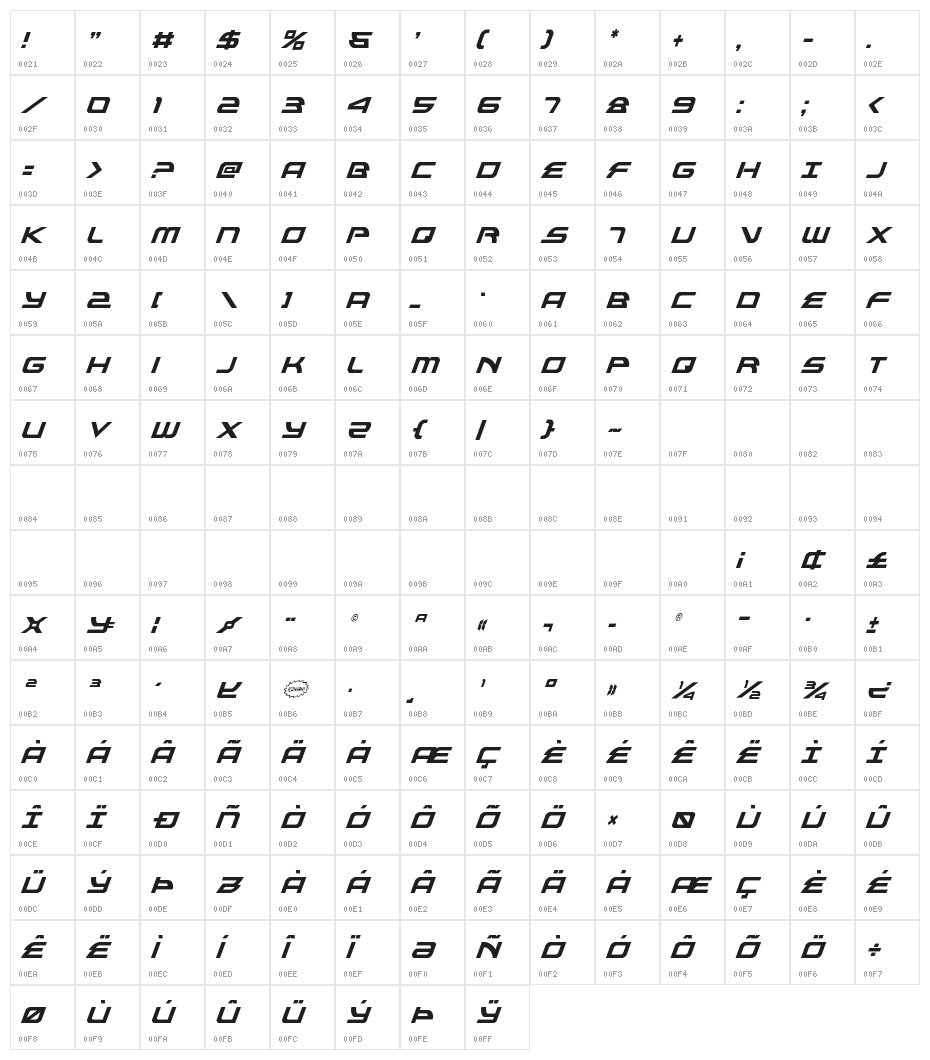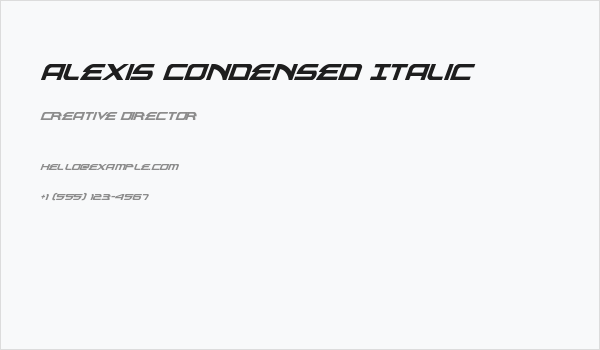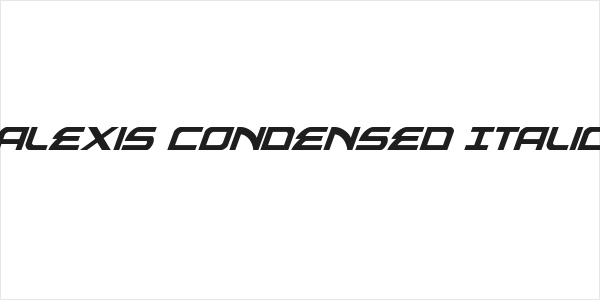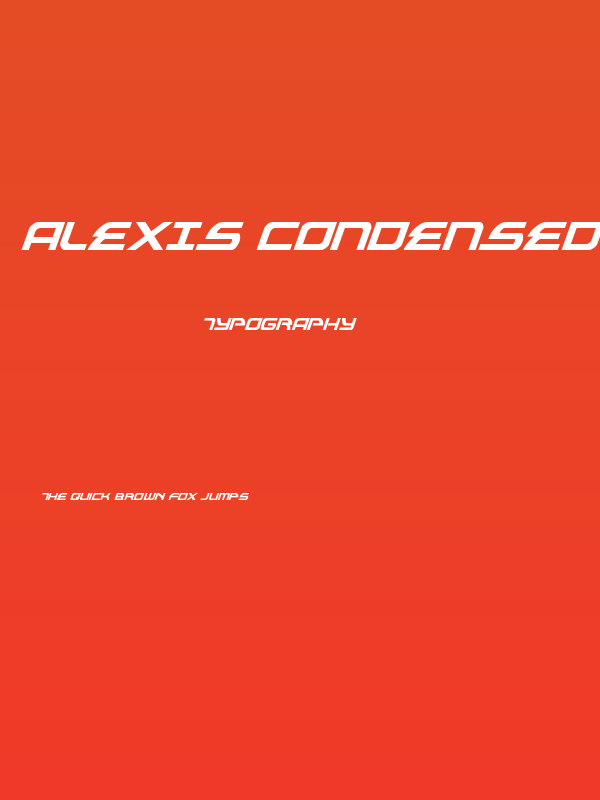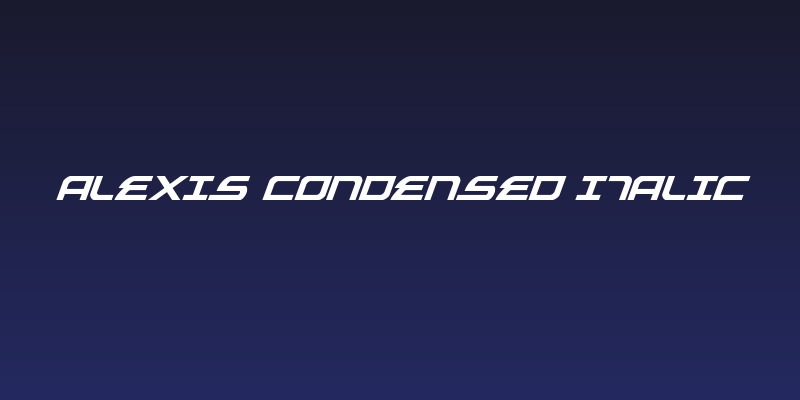
Alexis Condensed Italic Font
Alexis Condensed Italic Description
This font features a sleek, modern design with a condensed and italicized style. The characters are sharply angled, giving a dynamic and forward-moving appearance. The uppercase and lowercase letters maintain a consistent slant, enhancing the italic effect. The numerals and special characters follow the same design principles, ensuring uniformity across all glyphs. The font's condensed nature allows for efficient use of space, making it ideal for headlines or any application where space is limited. The bold strokes and geometric shapes contribute to its contemporary aesthetic, making it suitable for tech-oriented or futuristic themes.
| Proposed Projects | Ideal for tech branding, futuristic designs, sports team logos, and dynamic headlines. |